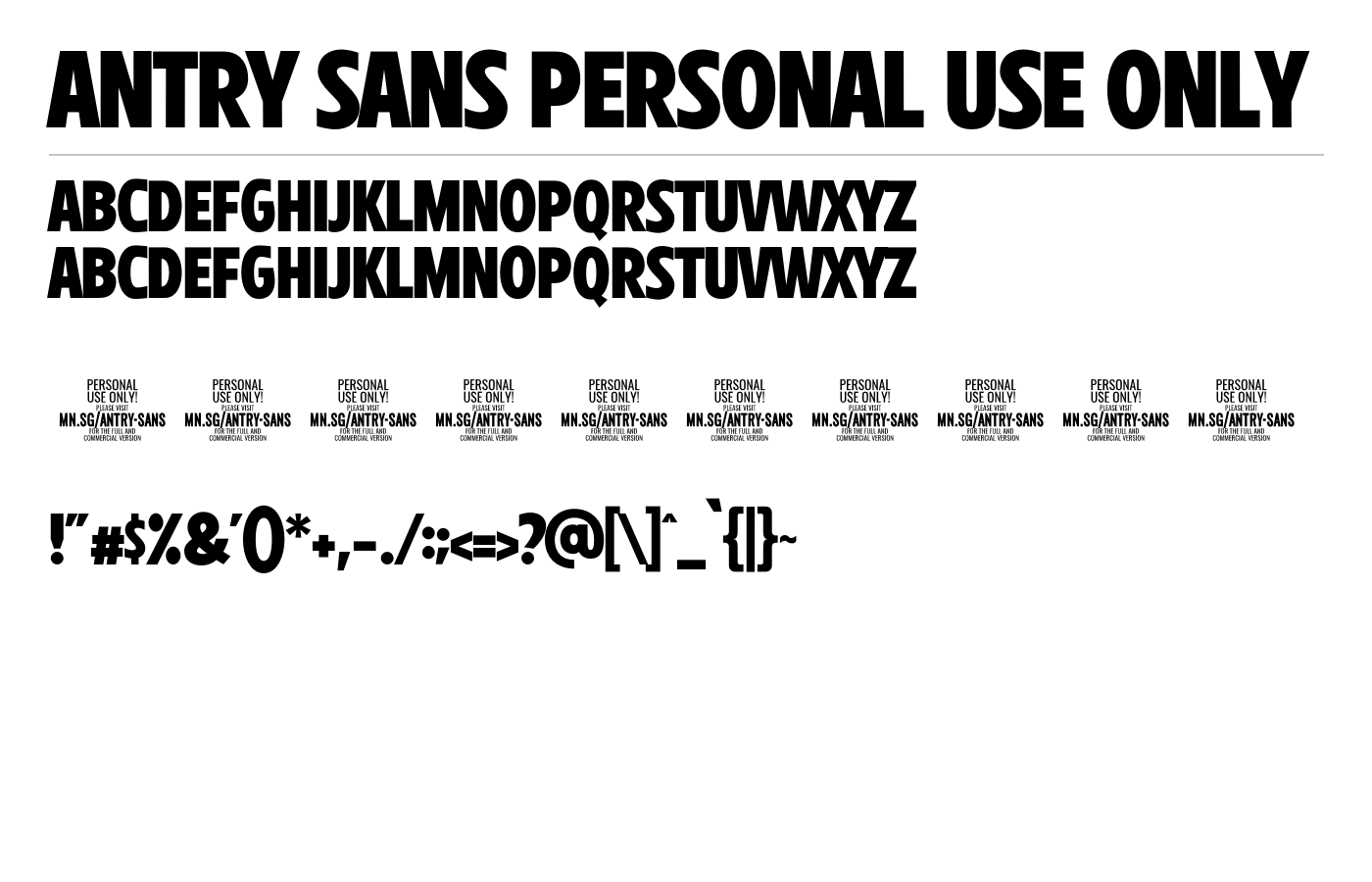
Antry Sans is a bold, condensed sans serif font with a strong, modern presence. Its uniform stroke weight and tight letter spacing create a compact, impactful look that works well for headlines, posters, and branding where attention-grabbing clarity is needed. This font conveys confidence and energy, making it ideal for contemporary designs seeking a powerful, bold statement.
Antry Sans PERSONAL USE ONLY Font
About Antry Sans PERSONAL USE ONLY Font